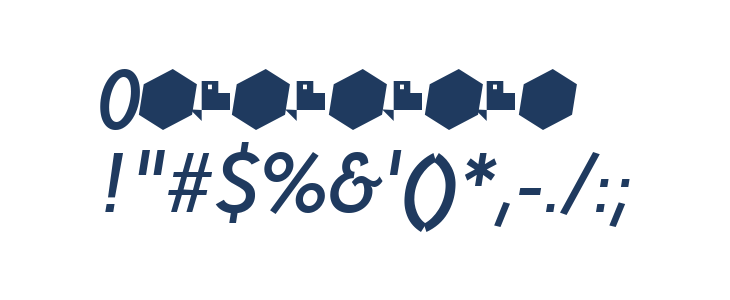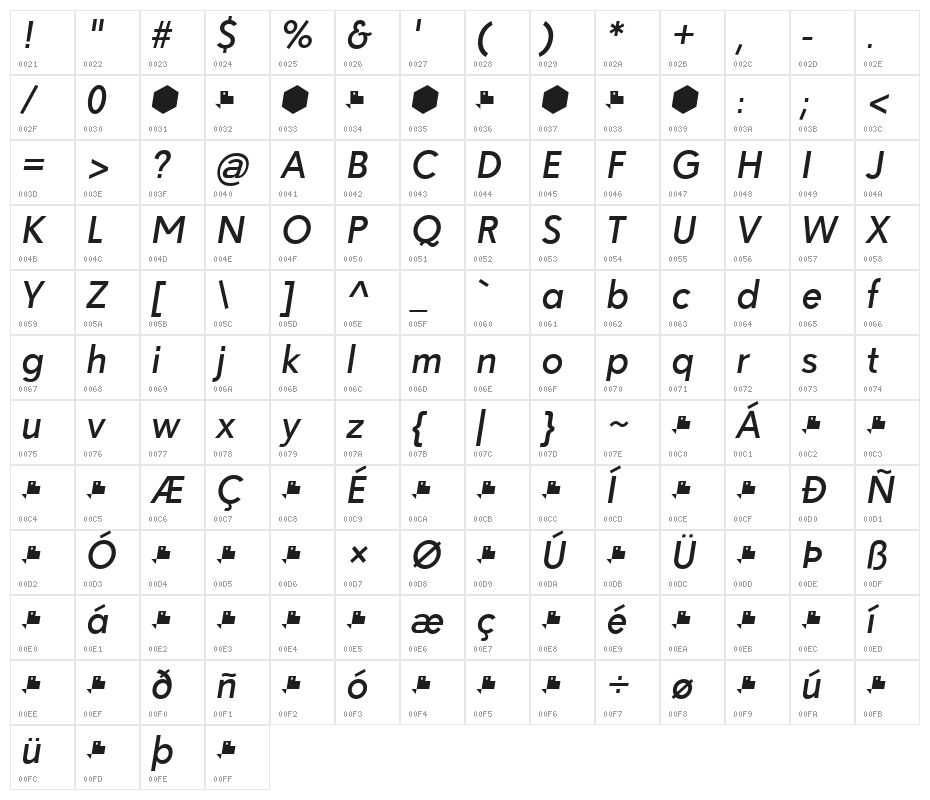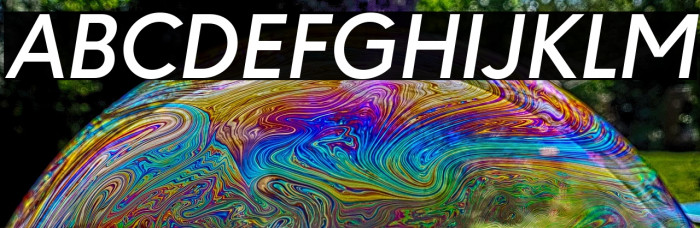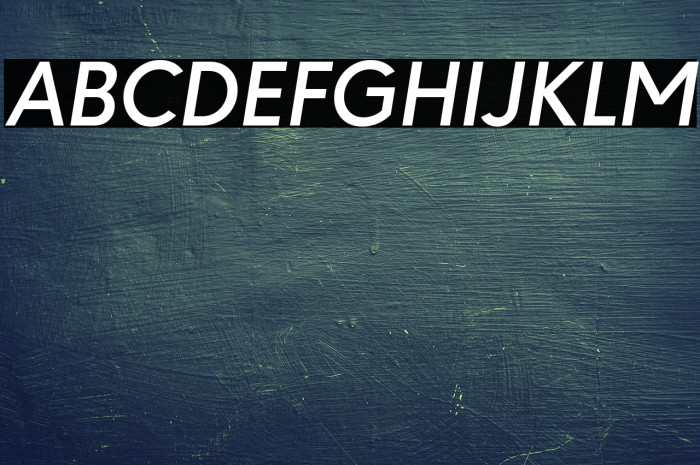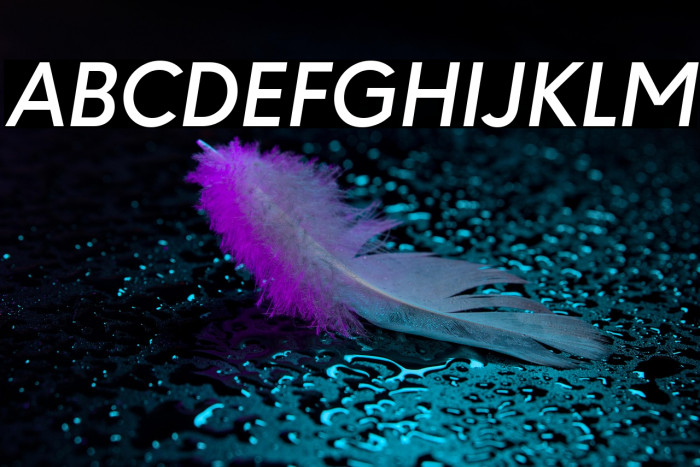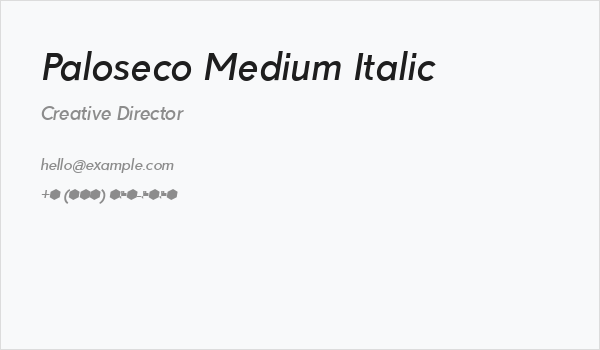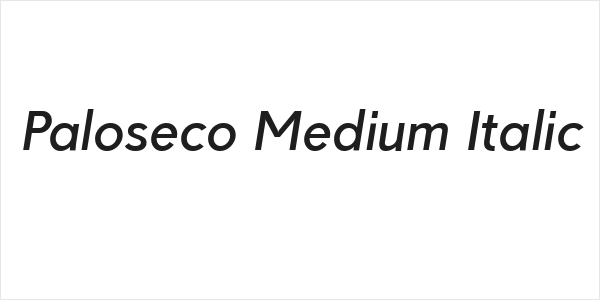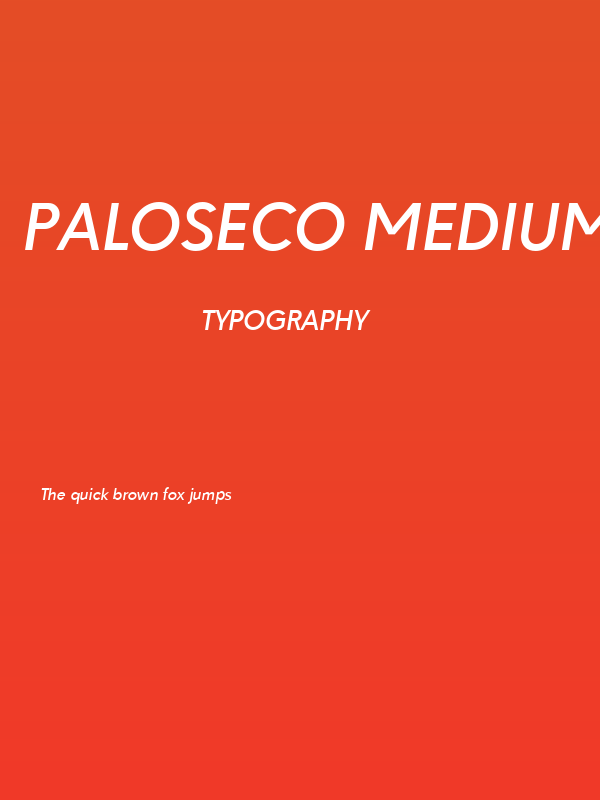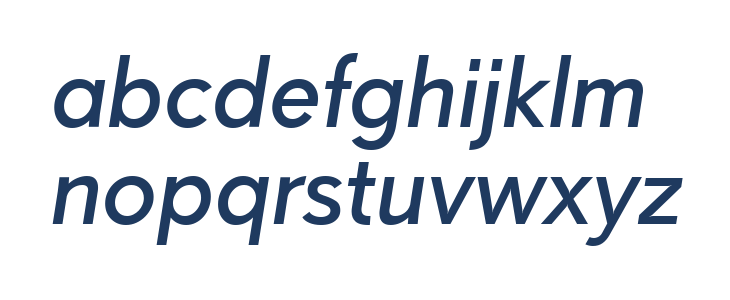
Paloseco Medium Italic Font
Paloseco Medium Italic Description
This font exhibits a clean and modern aesthetic with a slight italic slant, giving it a dynamic and forward-moving appearance. The characters are well-balanced with a consistent stroke width, providing a uniform look across both uppercase and lowercase letters. The numerals and special characters maintain the same stylistic approach, ensuring cohesion throughout. The overall design is sleek and professional, making it suitable for a variety of applications where clarity and style are essential.